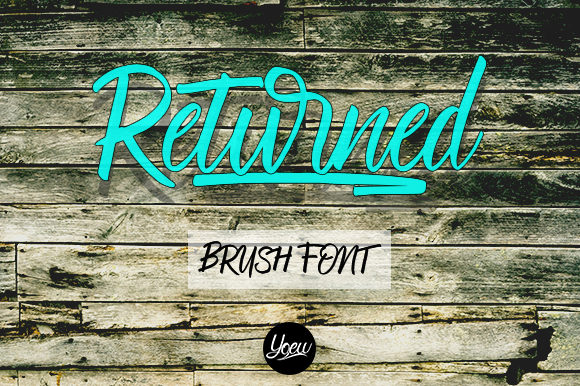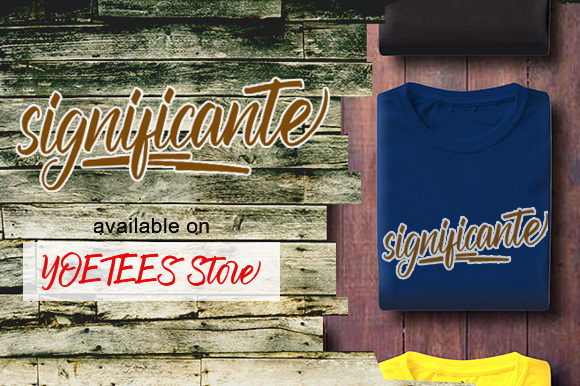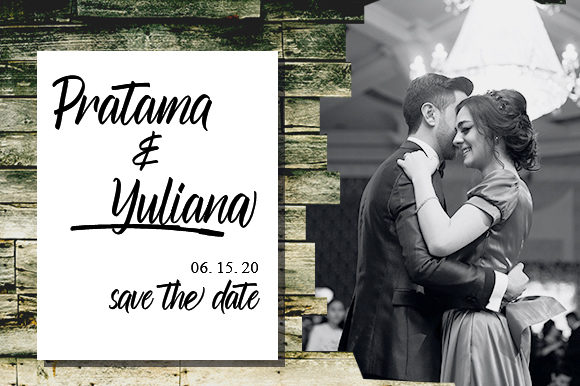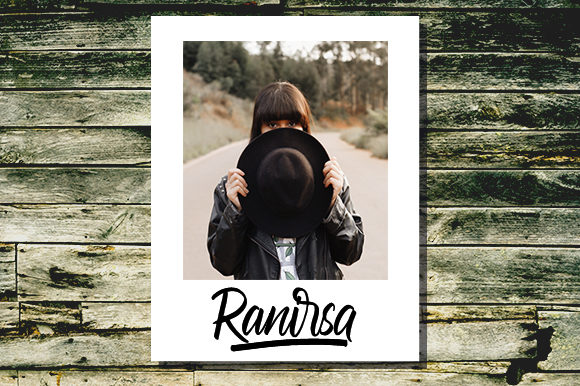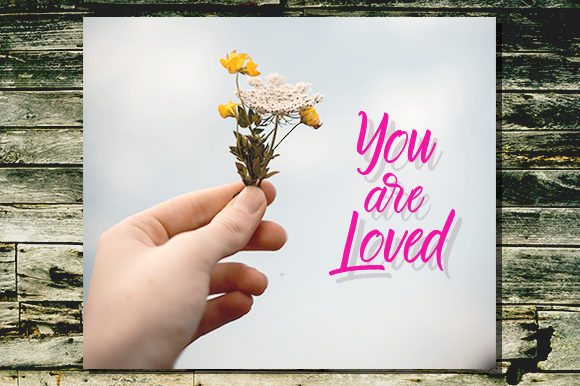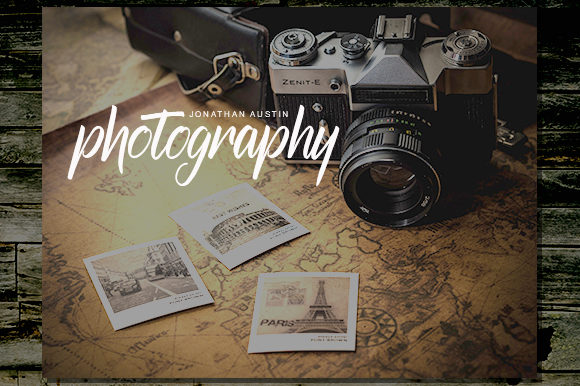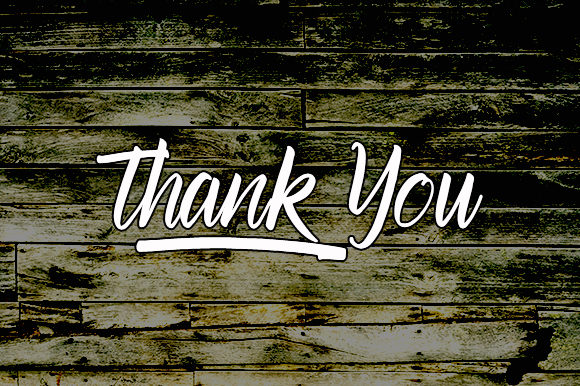
Returned Font
Returned is a cute handwritten font created with the brush pen. Whether you’re looking for fonts for Instagram or calligraphy scripts for DIY projects, Returned will turn any creative idea into a true piece of art!